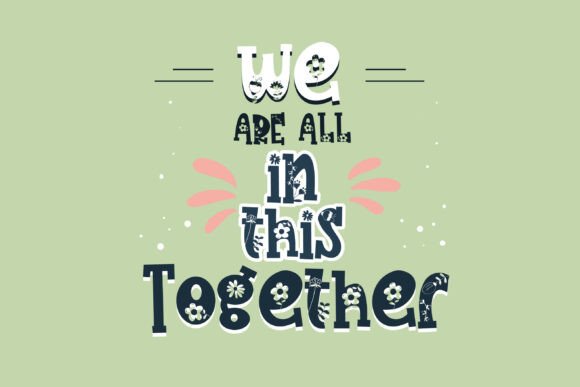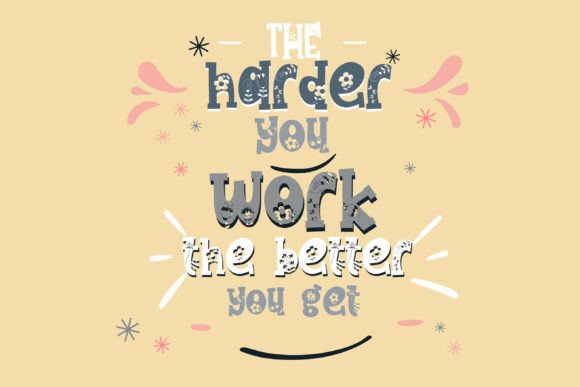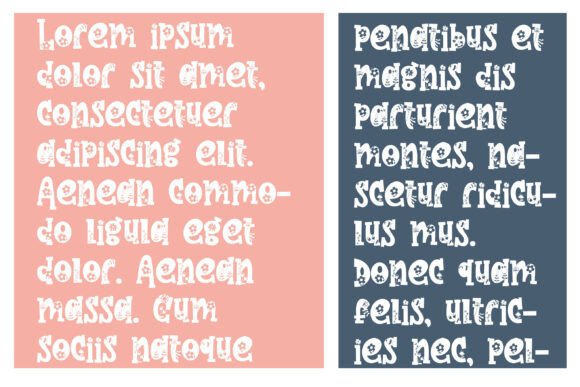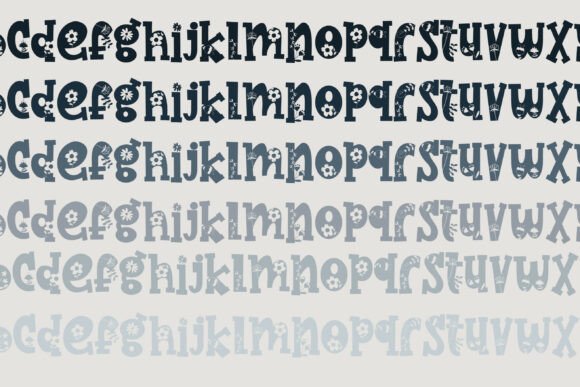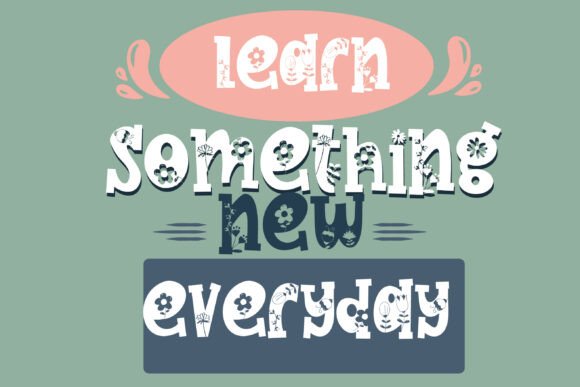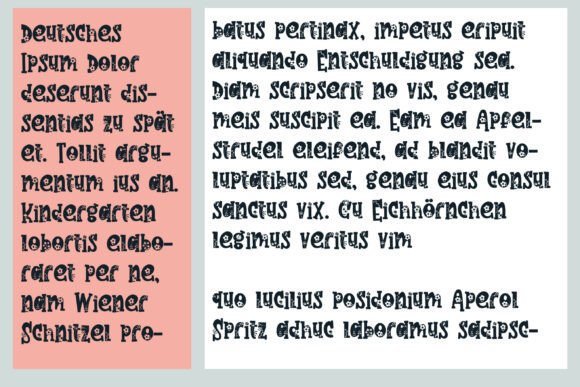
Introducing Flowering: The Ultimate Decorative Block-Style Floral Font
Are you looking for a font that can add a touch of charm and whimsy to your designs? Look no further than Flowering, a bold decorative font that is sure to command attention. This stunning typeface features heavy, blocky letterforms enhanced by intricate negative-space floral cutouts, capturing the essence of a modern “cottagecore” aesthetic.
What is Flowering Font?
Flowering is a unique and eye-catching font that combines the visual weight of bold, block-style lettering with the delicate beauty of intricate floral cutouts. Each letterform is carefully crafted to feature a stunning floral pattern within its negative space, creating a beautiful contrast between the heavy, chunky exterior and the lacy, airy interior.
This innovative design approach allows Flowering to function as both a font and a graphic element in any layout, making it incredibly versatile and perfect for a wide range of design applications.
Characteristics of Flowering Font
So, what makes Flowering font so special? Here are just a few of its key characteristics:
- Bold and eye-catching: Flowering font features heavy, block-style letterforms that are sure to grab attention.
- Intricate floral cutouts: The negative space within each letterform is carefully crafted to feature a beautiful floral pattern.
- Modern “cottagecore” aesthetic: Flowering font captures the essence of a charming, rustic cottage style that is perfect for designers looking to add a touch of whimsy to their work.
- Versatile: Flowering font can be used as both a font and a graphic element, making it perfect for a wide range of design applications.
Best Uses for Flowering Font
So, what are the best uses for Flowering font? Here are a few ideas to get you started:
- High-impact social media headers: Use Flowering font to create eye-catching social media headers that are sure to grab attention.
- Celebratory posters: Flowering font is perfect for creating celebratory posters for special occasions like weddings, birthdays, and anniversaries.
- Artisanal jam or honey labels: Add a touch of charm to your artisanal jam or honey labels with Flowering font.
- Nursery wall art: Flowering font is a great choice for nursery wall art, adding a touch of whimsy and charm to any room.
Design Tips and Tricks
Here are a few design tips and tricks to help you get the most out of Flowering font:
- Experiment with color: Flowering font looks great in a variety of colors, so don’t be afraid to experiment and find the perfect hue for your design.
- Mix and match: Try pairing Flowering font with other fonts to create a unique and eye-catching design.
- Use it as a graphic element: Don’t be afraid to use Flowering font as a graphic element in your design, such as in a header or footer.
Flowering font is a unique and eye-catching decorative block-style floral font that is sure to add a touch of charm and whimsy to your designs. With its bold, block-style letterforms and intricate negative-space floral cutouts, it captures the essence of a modern “cottagecore” aesthetic. Whether you’re a designer, crafter, or DIY enthusiast, Flowering font is a great choice for any project that requires a little extra charm and personality.